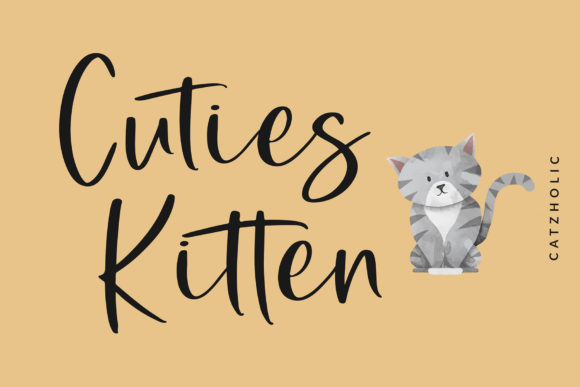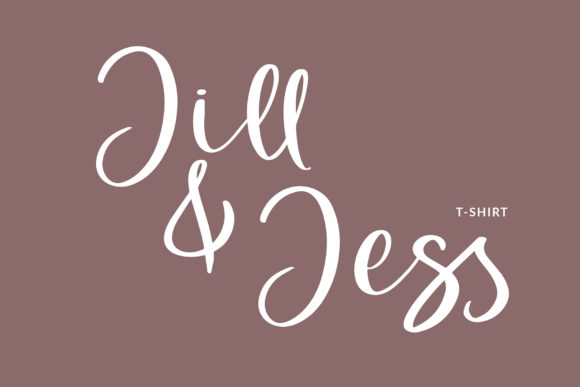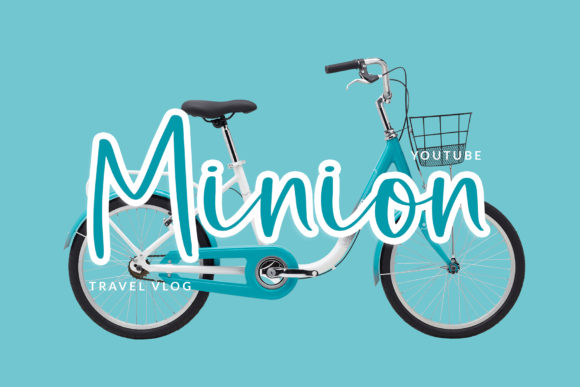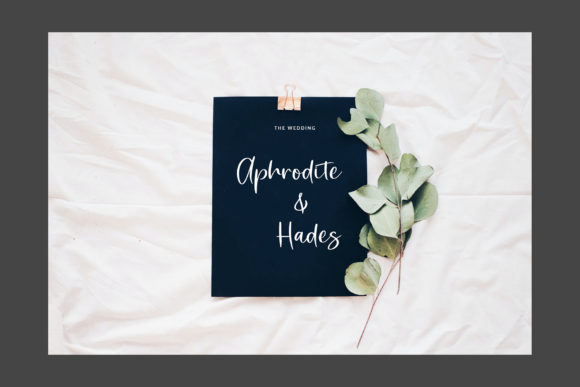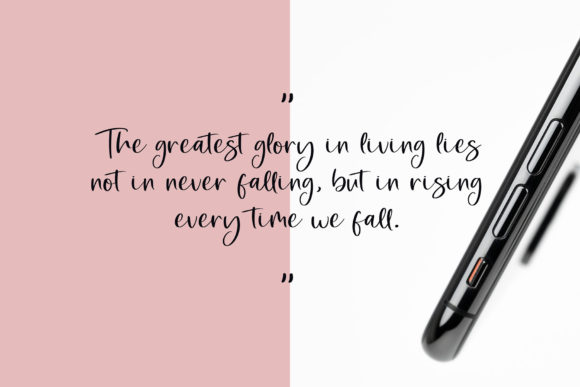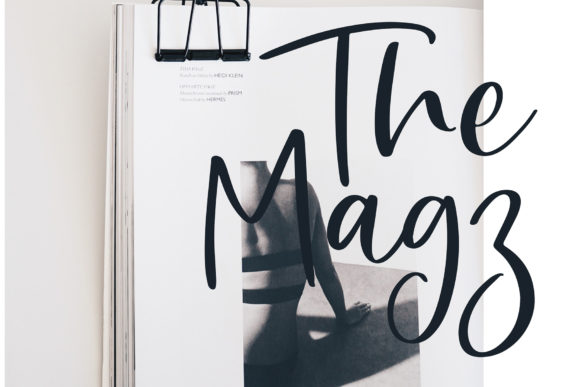
Introduction to Rossitta Font Font
Fonts play a crucial role in design, and the Rossitta Font font is a typeface that brings both character and versatility to any project. Whether you’re working on a branding project, a website, or a print design, the Rossitta Font font offers a unique style that can elevate your work.
Rossitta is a modern script font.
This is a beautiful combination of timeless elegance and authentic calligraphy It will add an elegant and modern touch to your designs.
Key Features of Rossitta Font Font
Why Choose Rossitta Font Font?
The Rossitta Font font is more than just a typeface – it’s a design tool that helps you communicate your message with style and clarity. Its unique character set and versatile design make it suitable for a wide range of applications, from elegant invitations to bold headlines.
With its carefully crafted letterforms and balanced proportions, the Rossitta Font font ensures readability and visual appeal across all mediums.
What makes Rossitta Font font special?
The Rossitta Font font stands out with its unique design, exceptional readability, and versatility across various design applications.